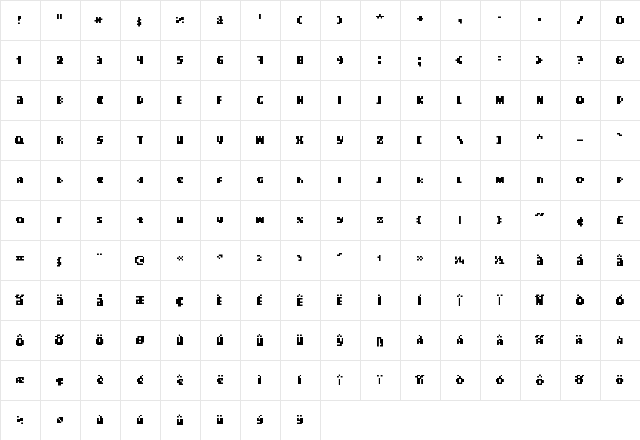
Crackers Regular
Design Context for Crackers Typeface
Crackers is a composed and adaptable typeface that performs quietly and consistently across a wide range of design contexts.